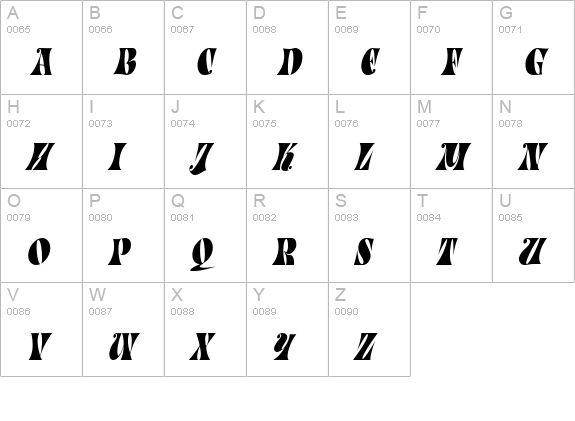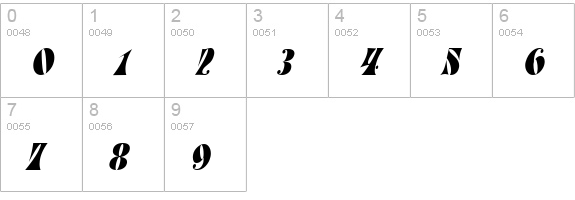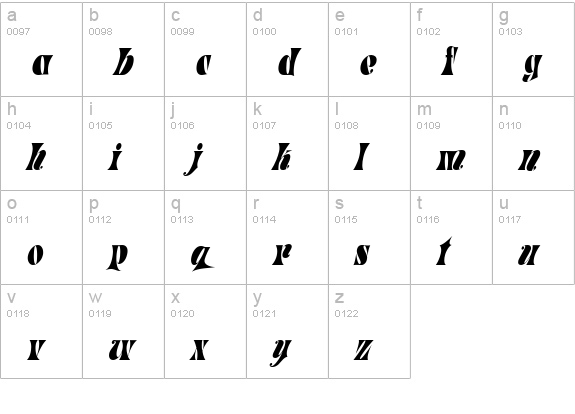
ParadeTight Italic Font Details
ParadeTight Italic is a distinctive, italic variant in the ParadeTight typeface family \xE2\x80\x94 well suited to design and typography projects.
ParadeTight Italic font is a stunning display typeface that exudes elegance and sophistication. Its sleek and slender letterforms create a sense of movement and grace, making it the perfect choice for any design project that requires a touch of refinement. With its unique italic style, ParadeTight adds a sense of drama and flair to any typographic composition. Whether used for headlines, logos, or branding materials, this font is sure to capture attention and leave a lasting impression. The slightly condensed proportions of ParadeTight Italic make it ideal for fitting more text into limited spaces, without sacrificing legibility. Its clean and crisp lines ensure clarity, even at smaller sizes. What sets ParadeTight Italic apart is that it is freely available to download at FontsMarket.com. This means that designers and creatives can easily access and utilize this beautiful font in their projects without any cost. It offers a fantastic opportunity to elevate design work without breaking the budget. So, whether you're working on a print ad, website, or packaging design, ParadeTight Italic font is a versatile and stylish addition to your typographic toolbox. Its sleek and contemporary aesthetic will add a touch of sophistication to any project, making it stand out from the crowd. Download it for free at FontsMarket.com and bring your designs to life with this exquisite typeface.